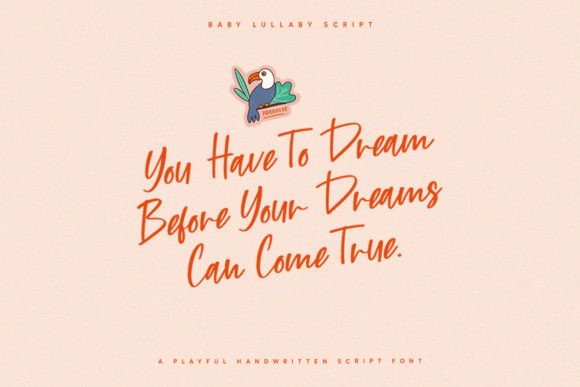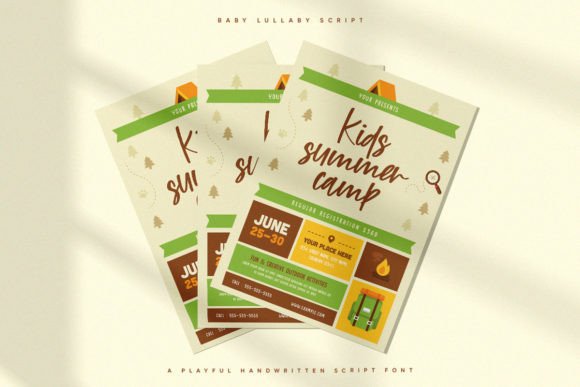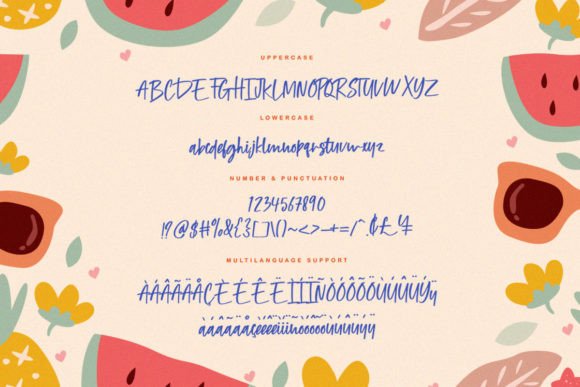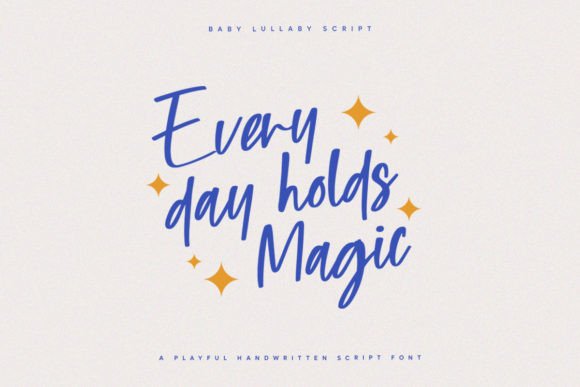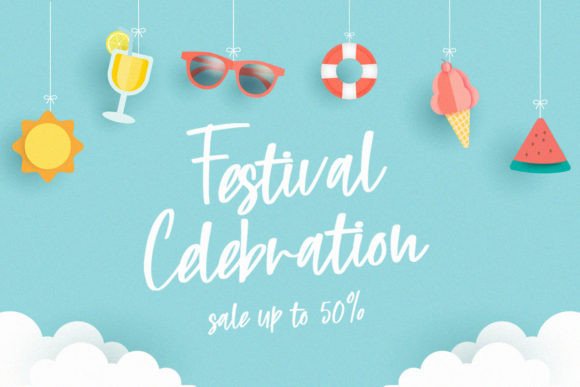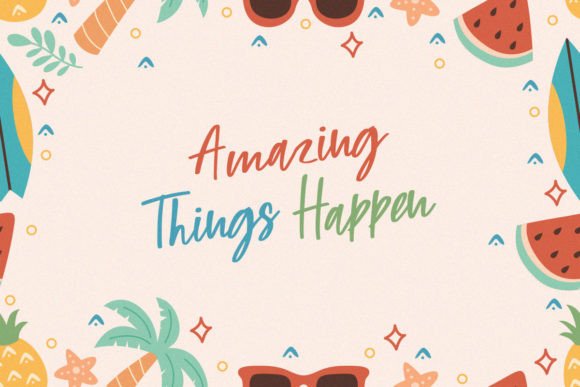
Whispers of Slumber: Introducing the Baby Lullaby Font
Have you ever been stuck on a design project, struggling to find the perfect font to capture the essence of your idea? It’s like trying to lull a baby to sleep – you need just the right tone and rhythm to soothe their senses. For designers, the search for the perfect font can be a tedious and time-consuming process. But what if you stumbled upon a font that could do it all – a font that would add a touch of whimsy, playfulness, and joy to your projects?
Enter the Baby Lullaby Font, a beautiful, handwritten font designed to bring a sense of serenity and happiness to your designs. With its gentle curves and soft lines, this font is perfect for adding a personal touch to baby-related projects, from nursery decor to children’s book illustrations. Its versatility makes it a valuable asset for designers, allowing them to create a wide range of designs that will capture the hearts of their audience.
- Font Style: A unique, handwritten font designed specifically for creating soothing and calming designs, perfect for baby-related projects.
- Character Set: Includes a comprehensive set of uppercase and lowercase letters, numbers, and special characters, making it easy to create a variety of designs.
- Unique Characteristics: Features subtle, hand-drawn elements and gentle flourishes, giving it a personal and intimate feel that’s perfect for baby-related designs.
As a designer, I was excited to dive into the Baby Lullaby Font and see what it had to offer. ✨ The first thing that stood out to me was the soft, whimsical feel of the font. It’s perfect for any project that requires a touch of warmth and gentleness. The font is well-suited for baby-related projects, such as nursery decor, children’s books, or even packaging for baby products.
The Baby Lullaby Font is also incredibly easy to use, with a range of font styles and sizes to choose from. ✨ The font is highly customizable, allowing designers to tailor the look to their specific project needs. Additionally, the font is highly legible, making it perfect for both digital and print projects.
- ⚠️ Limited font styles and weights, which may limit its use in more complex projects
- ⚠️ Not suitable for high-contrast or bold designs, as the font may get lost in the background
- ⚠️ Some characters may require manual editing to achieve the desired look
Overall, I think the Baby Lullaby Font is a great addition to any designer’s toolkit. While it may have some limitations, it’s perfect for a wide range of projects that require a soft, gentle touch. With its ease of use and high level of customizability, I would definitely recommend the Baby Lullaby Font to fellow designers.
The Baby Lullaby font is ideal for creating a soothing and calming atmosphere, making it perfect for baby-related designs, such as nursery decor, baby cards, and baby shower invitations. You can also use it to create a vintage or whimsical feel for other designs.